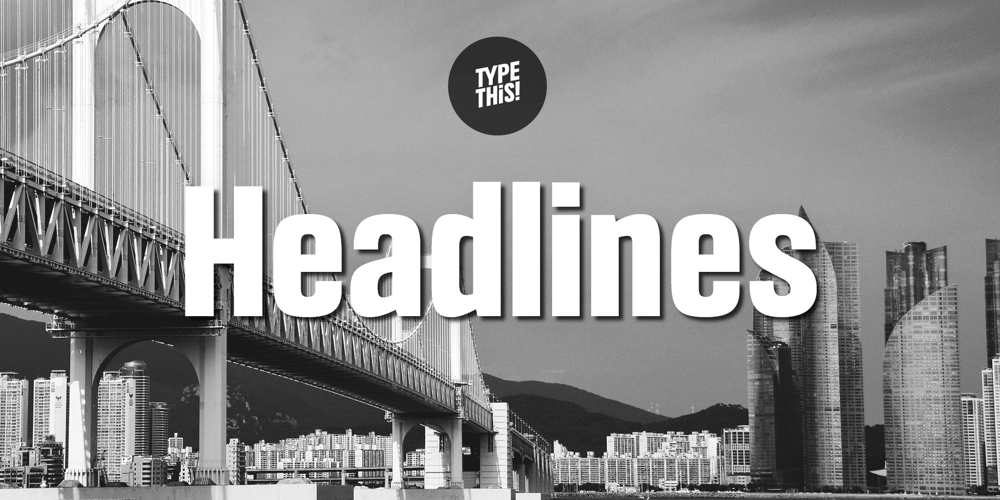
Headlines Font Family was designed by Anita Jürgeleit and published by TypeThis!Studio. Headlines contains 58 styles and family package options. Perfect headlines — now and forever!Headlines is designed for clear and straight headlines and also allow longer words and headlines to find the space they need for a well-composed headline. Unicase styles let your headlines shine uniquely in every respect.It contains a number of special ligatures for certain combinations to fill common visual gaps such as tty, rv.Newsletter: www.typethis.studio*Variable fonts work well in software that supports variable font technology.